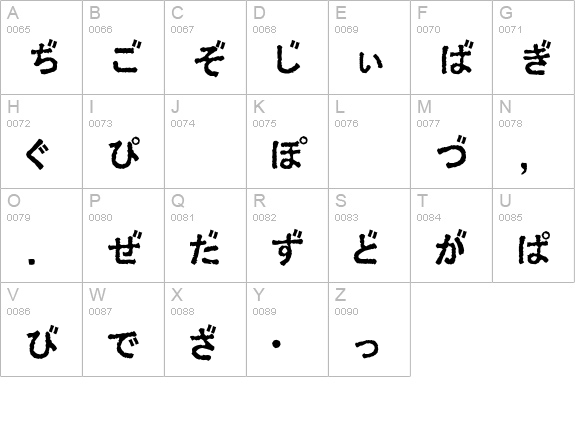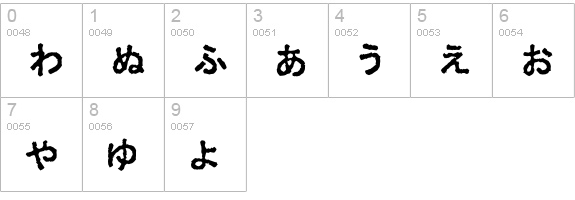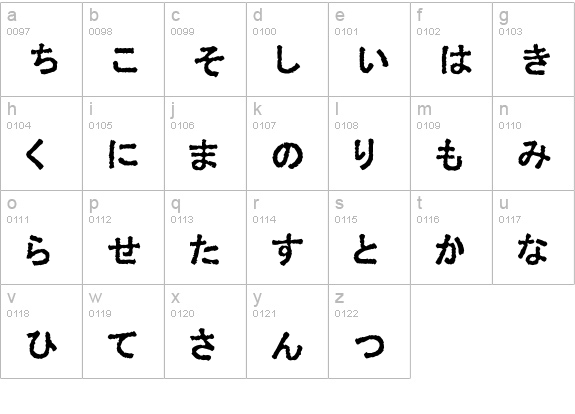
Ex Hira Opaque Font Details
Ex Hira Opaque font is a stunning display font that exudes elegance and sophistication. With its bold and unique design, this font is perfect for making a statement in your designs. The Ex Hira Opaque font features smooth curves and sharp edges that give it a modern and sleek look. Whether you are creating a logo, branding materials, or any other design project, this font is sure to make an impact. Best of all, the Ex Hira Opaque font is completely free to download at FontsMarket.com. This means you can add this beautiful font to your collection without having to spend a dime. Don't miss out on the opportunity to enhance your designs with the Ex Hira Opaque font today!